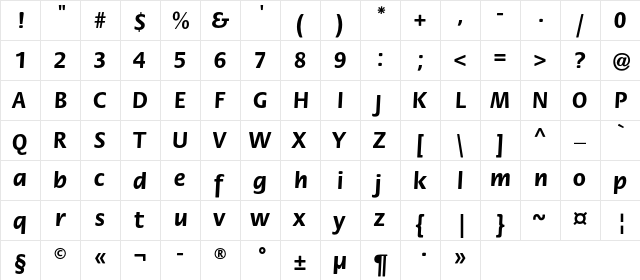
FloraC Bold Font Preview
FloraC Bold
Design Context for FloraC Typeface
FloraC takes a measured approach to typography — its balanced proportions and neutral character make it a reliable workhorse for both digital and print work. The heavy weight commands attention and anchors typographic hierarchies.